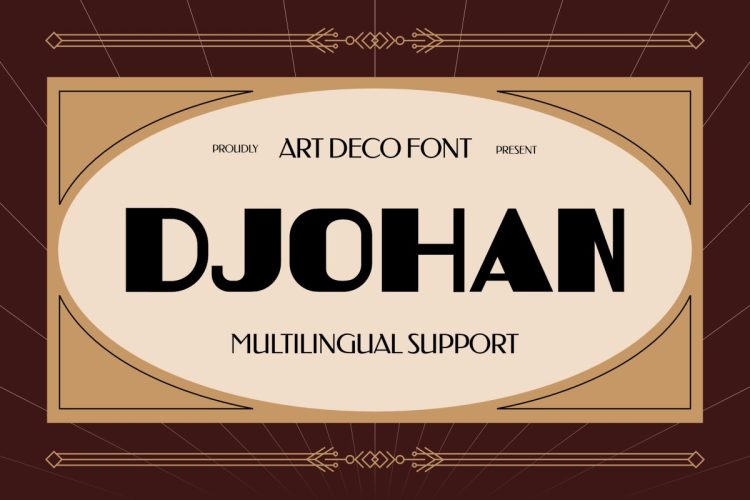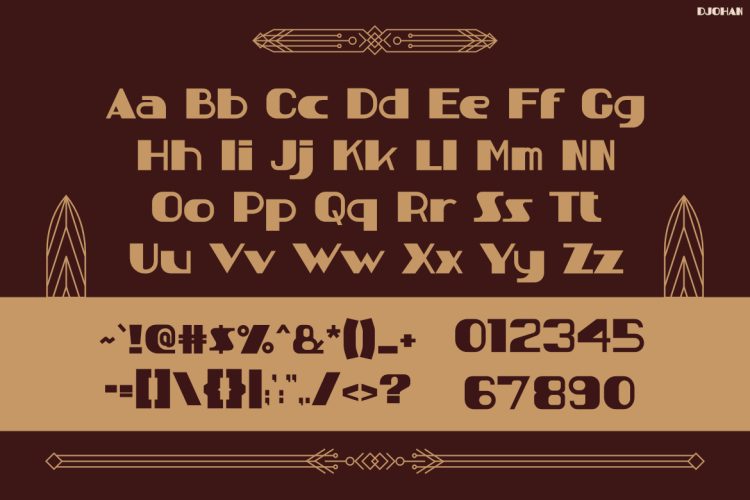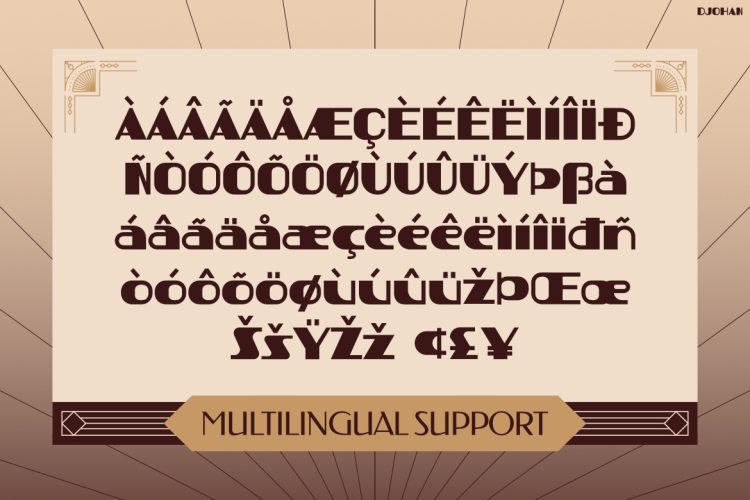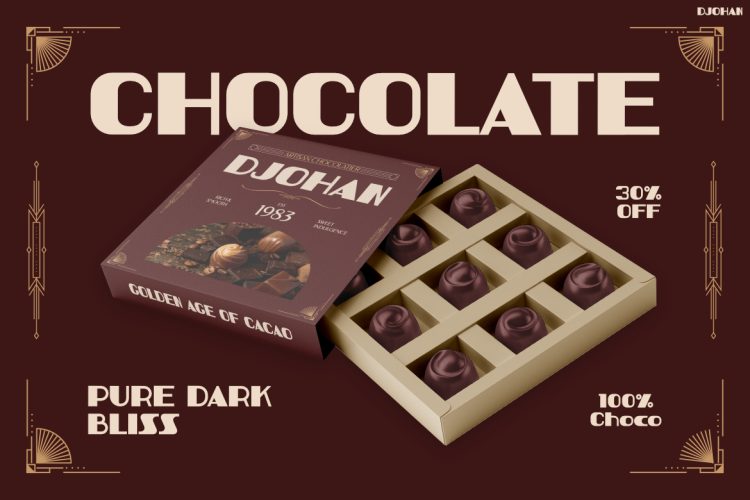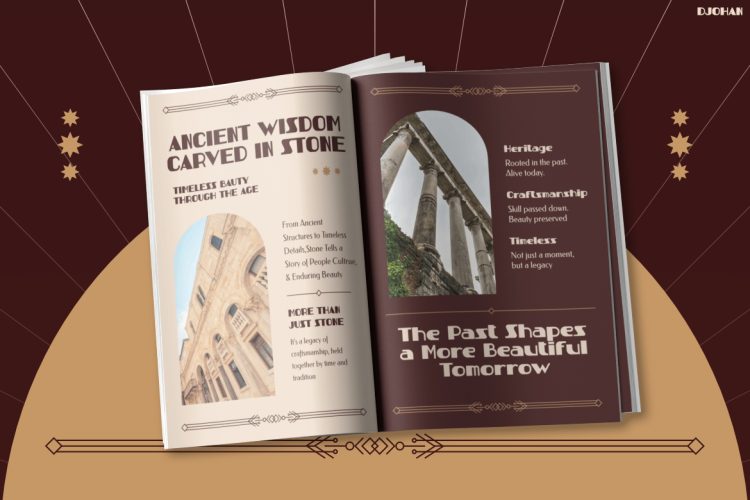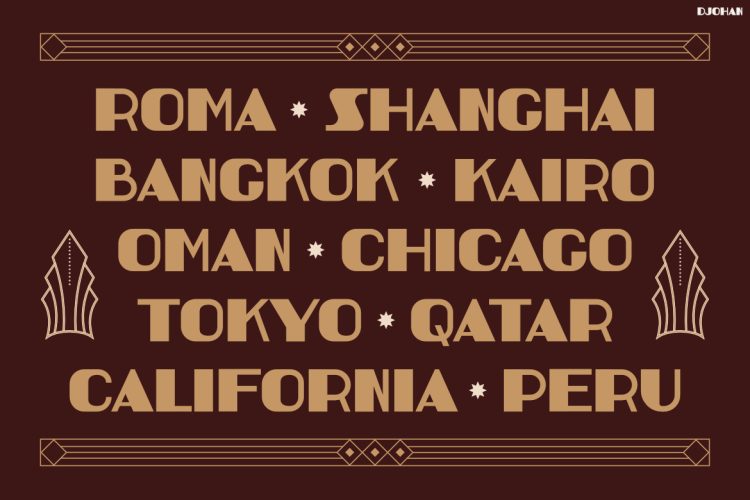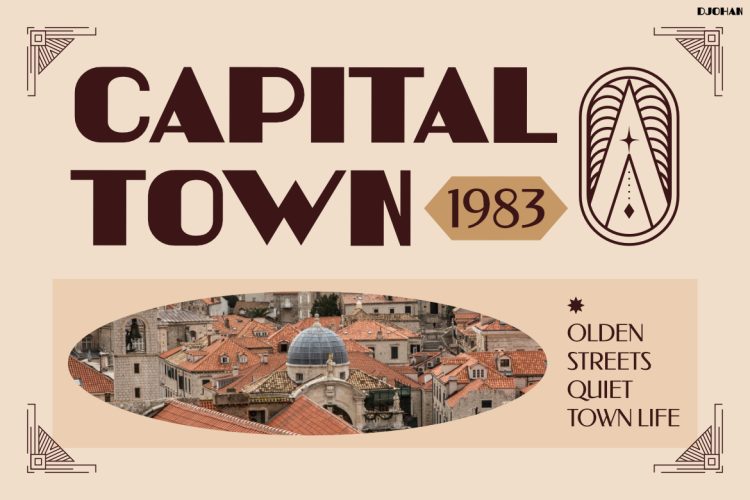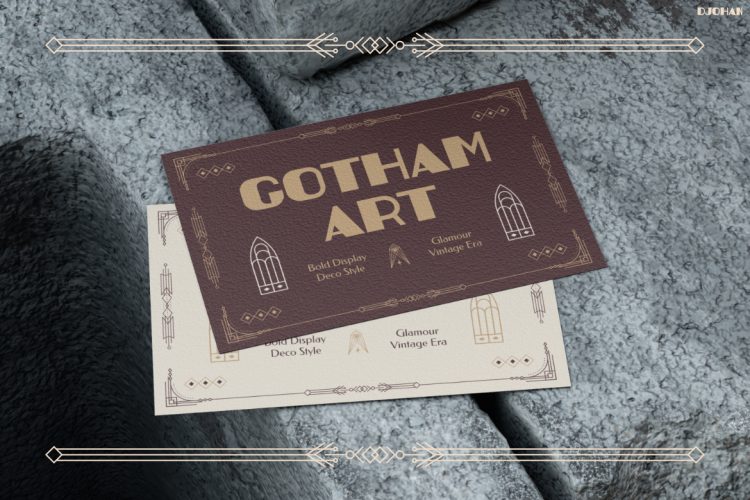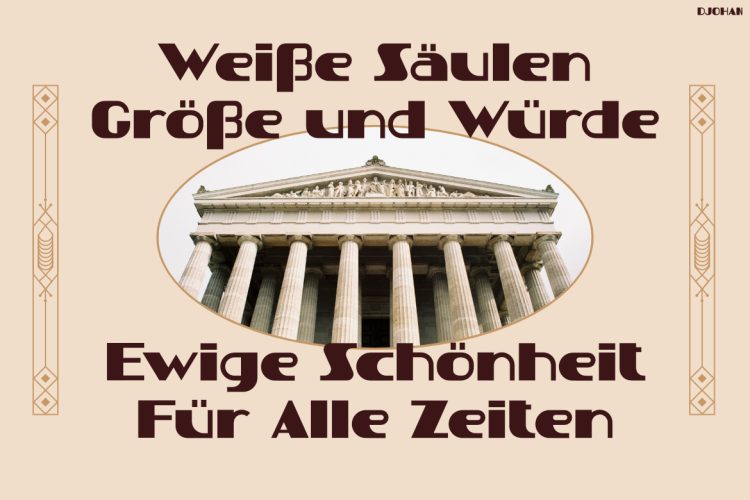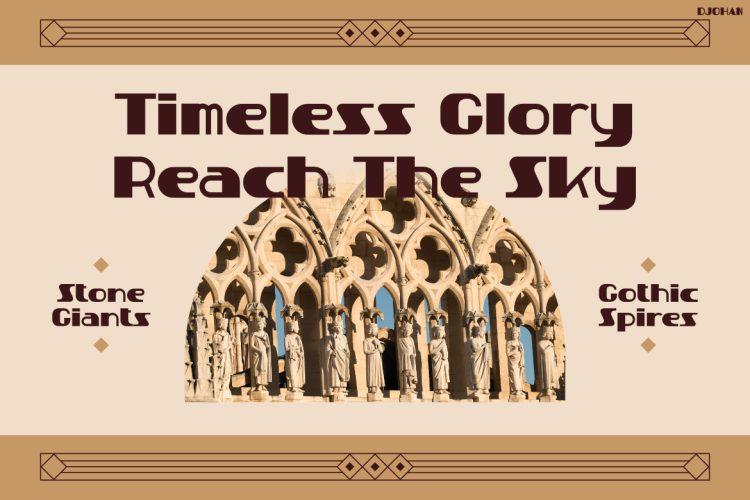
DJOHAN โ Retro Classic Display Font
Retro Font DJOHAN brings a classic vintage mood with bold and decorative letterforms. From the start, its strong shapes create an instant old-school feel. Moreover, the elegant details add extra personality to every word. At the same time, its balanced structure keeps the text clean and readable. In addition, DJOHAN blends classic charm with a fresh modern touch. Because of this, it works beautifully for bold headlines and memorable branding. Furthermore, its timeless style makes creative projects feel warm and distinctive. Plus, DJOHAN includes Multilingual Support for 67 Languages. Therefore, you can use it for projects aimed at audiences worldwide.
Whether you’re designing packaging or building a classic brand, DJOHAN fits right in. Furthermore, it works beautifully for logos, chocolate packaging, cafรฉ branding, posters, labels, and book covers. Additionally, you can use it for editorial layouts, invitations, menus, badges, and merchandise. Meanwhile, its retro character gives creative businesses a memorable visual identity. Because of its bold display style, DJOHAN also works especially well for headlines and brand names. As a result, designers, illustrators, cafรฉs, boutiques, restaurants, and lifestyle brands can use it across many projects.
Bring Back the Classic